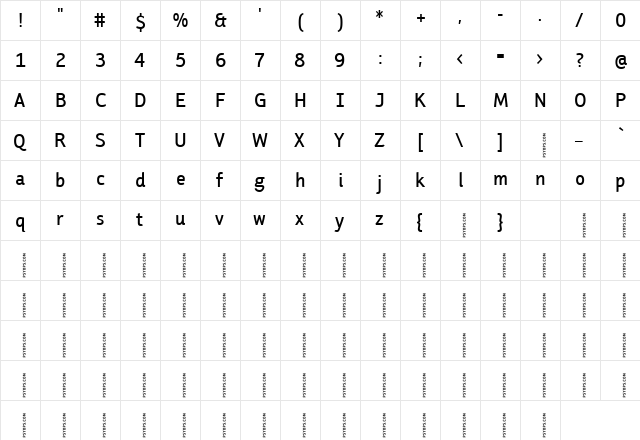
FaceplateSansCGaugeLE Regular
Design Context for FaceplateSansCGaugeLE Typeface
FaceplateSansCGaugeLE offers clean, dependable letterforms without strong stylistic allegiance, making it a practical choice for designers who need flexibility.